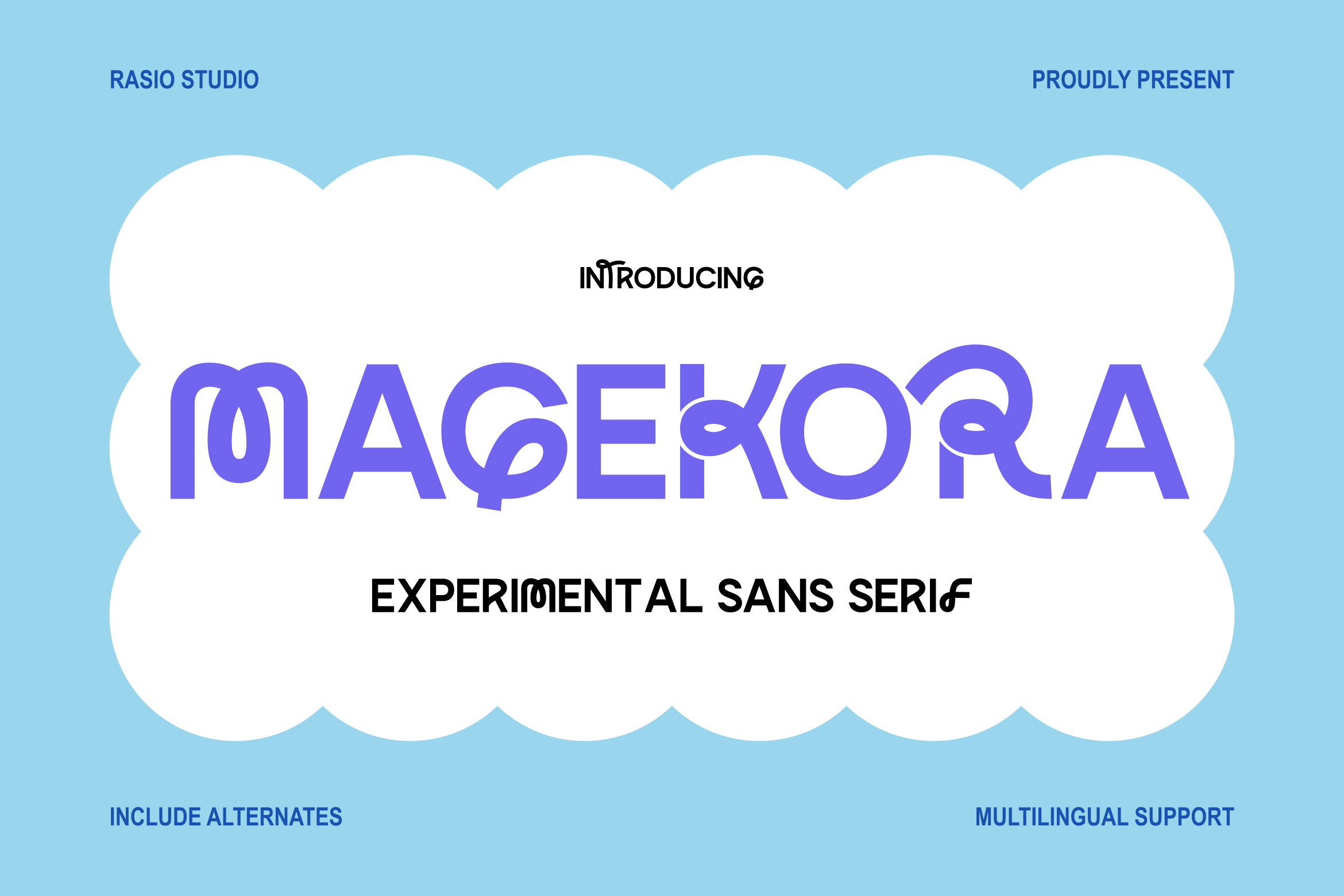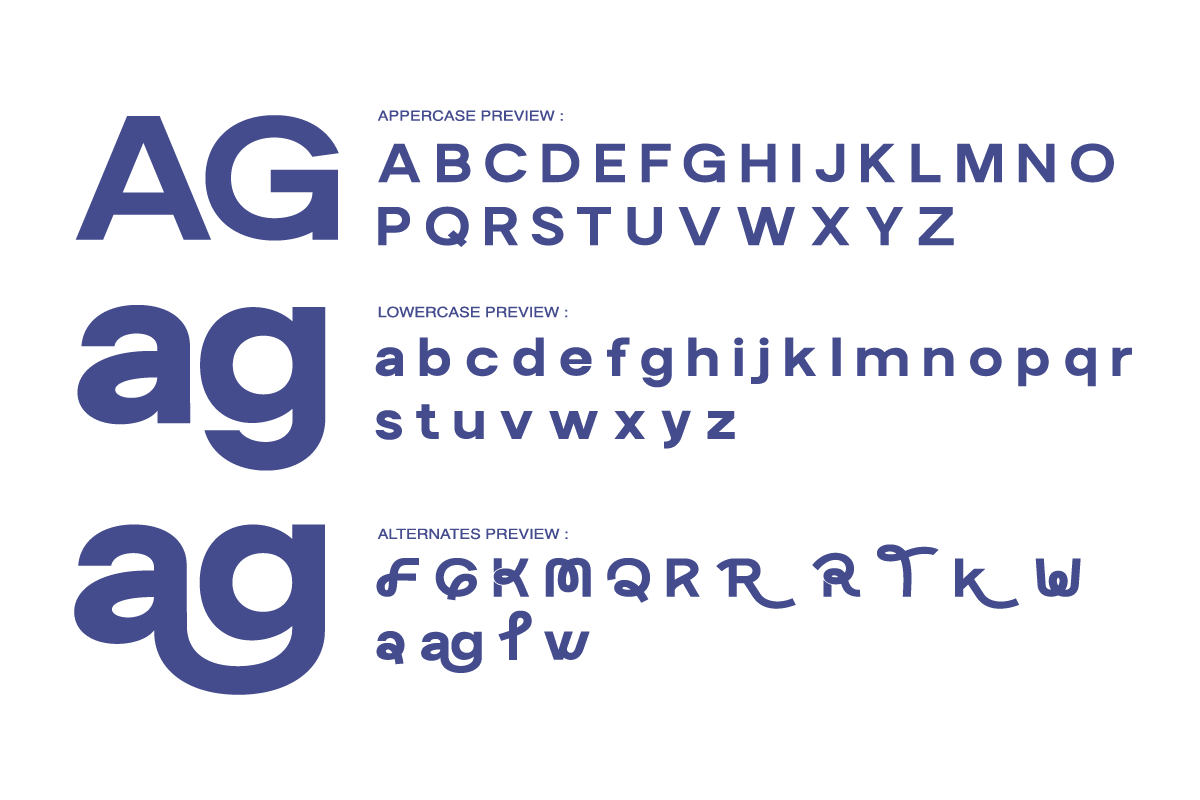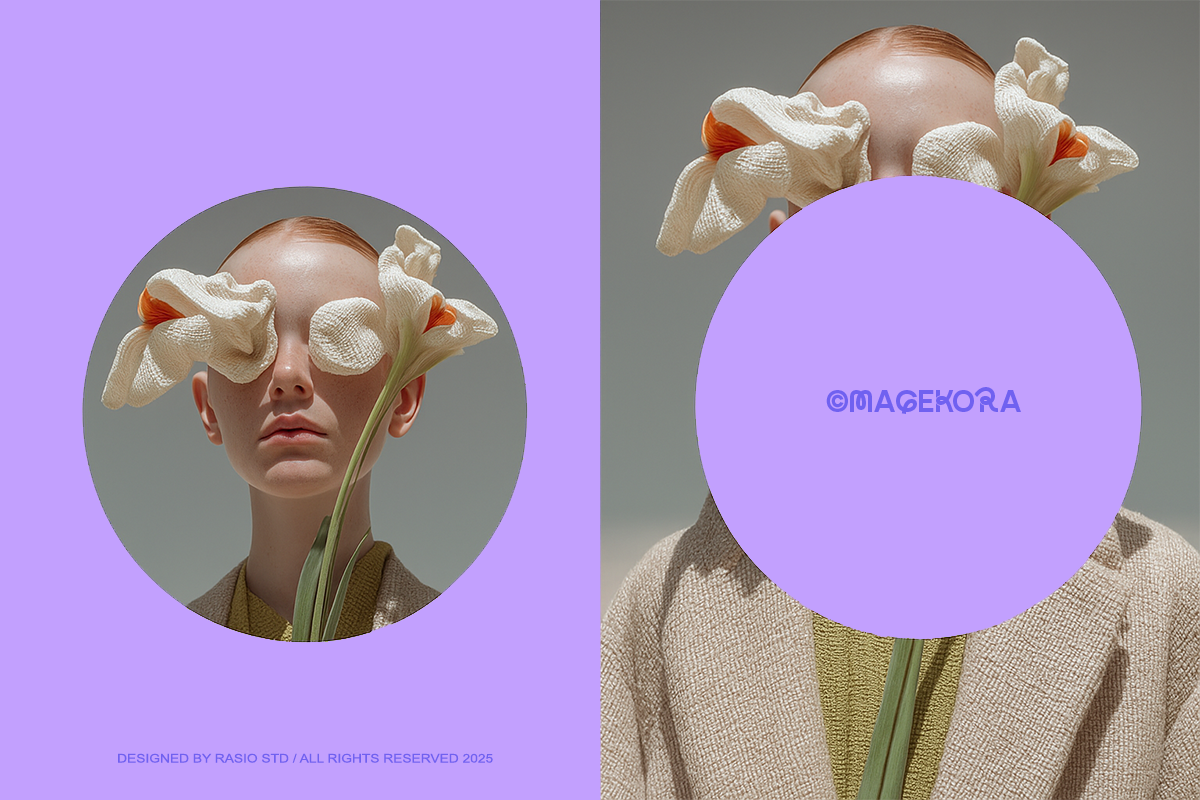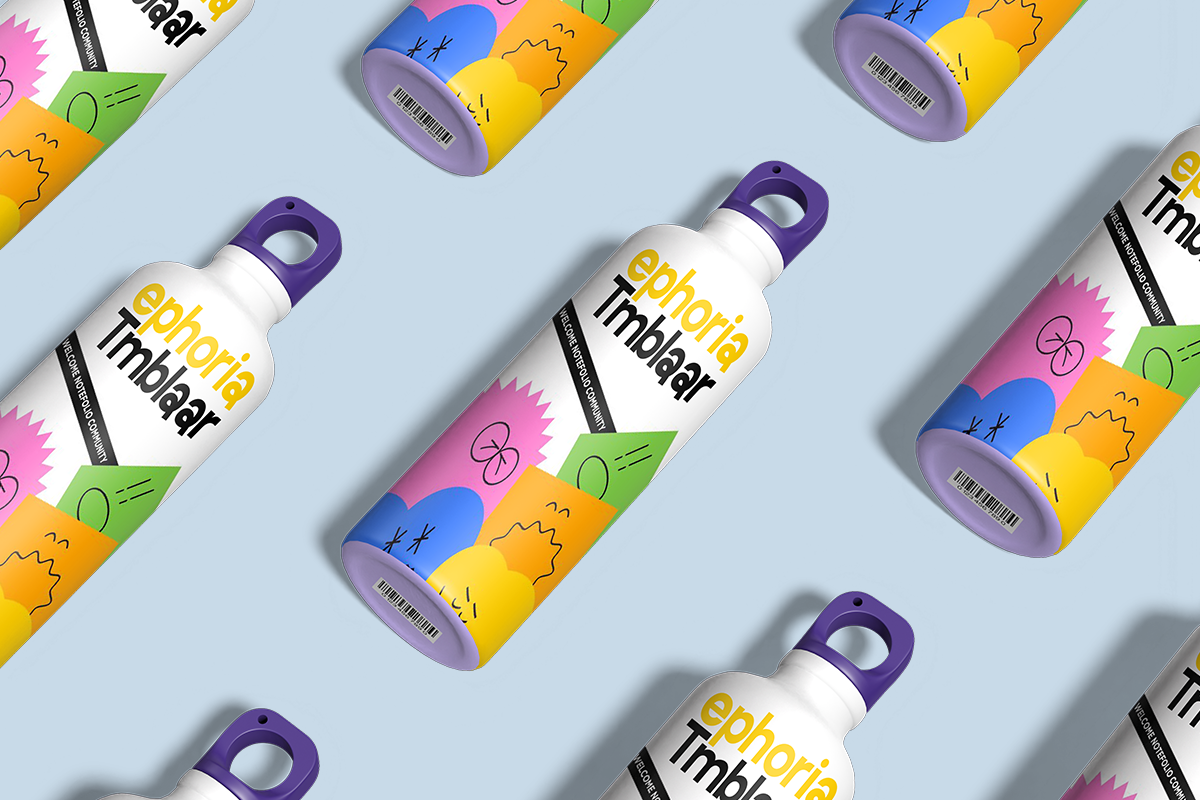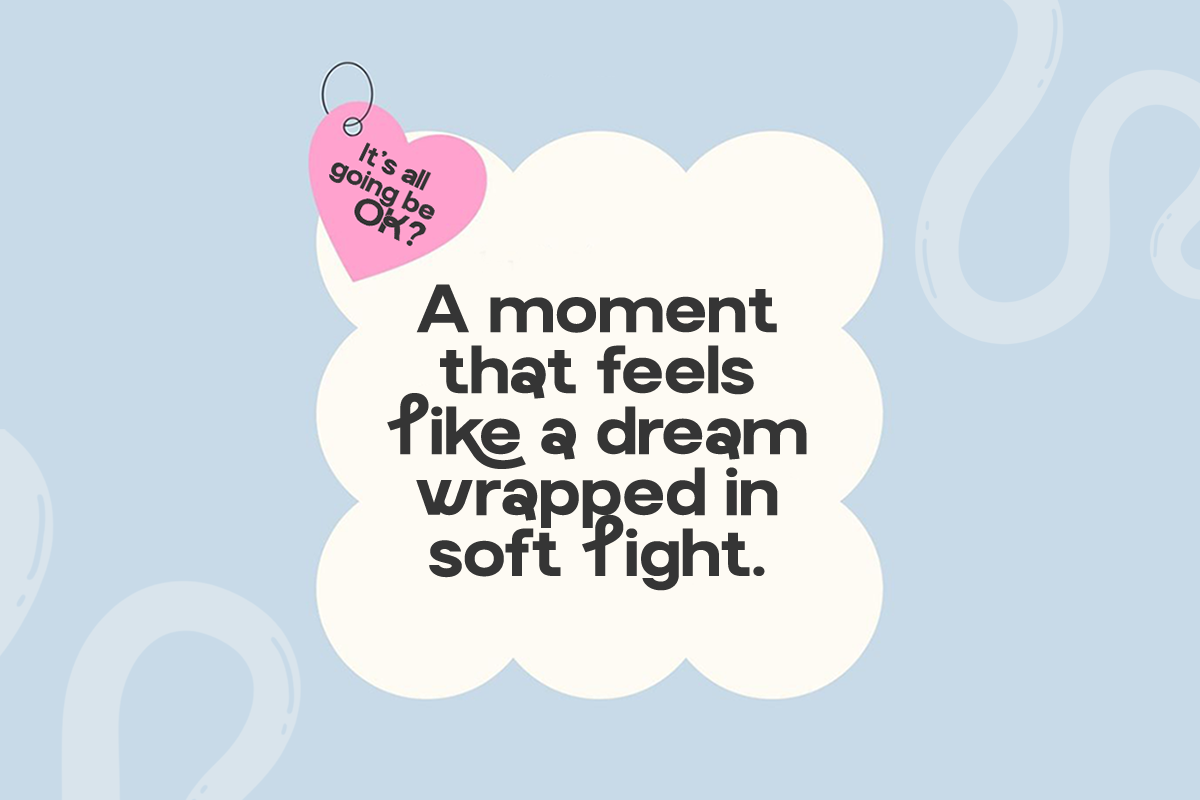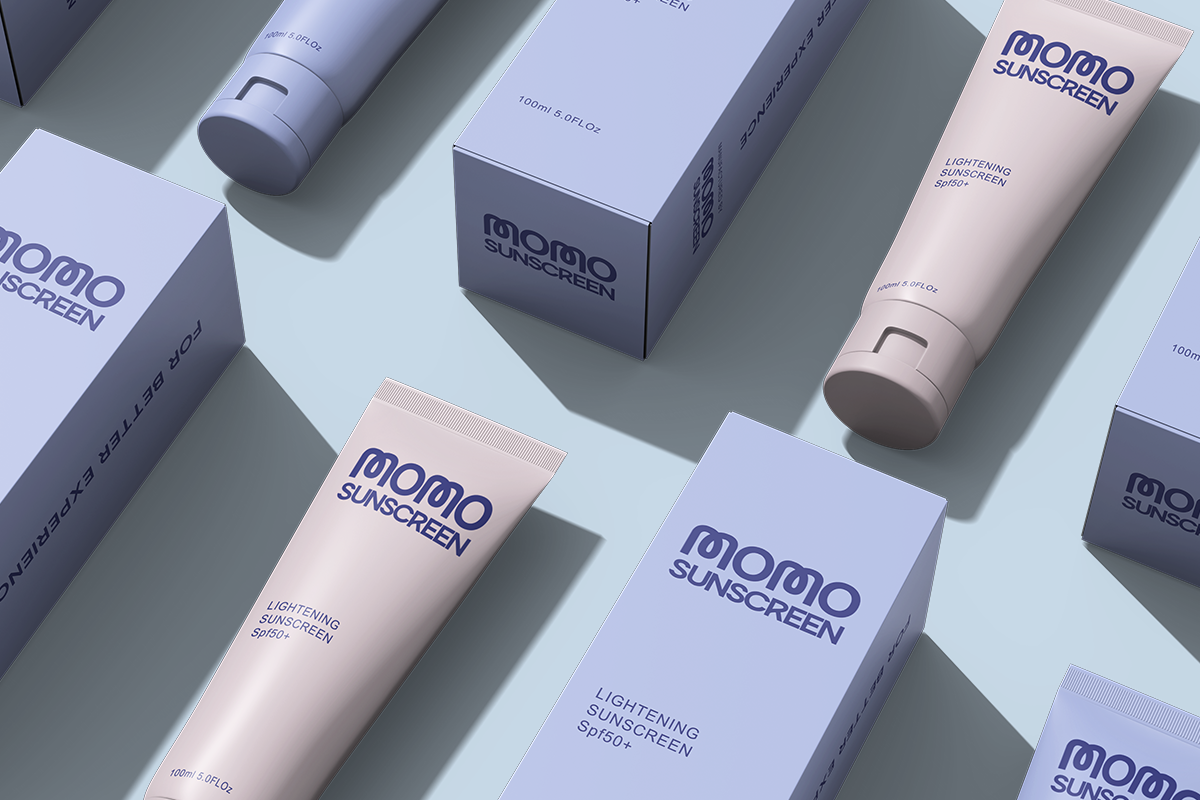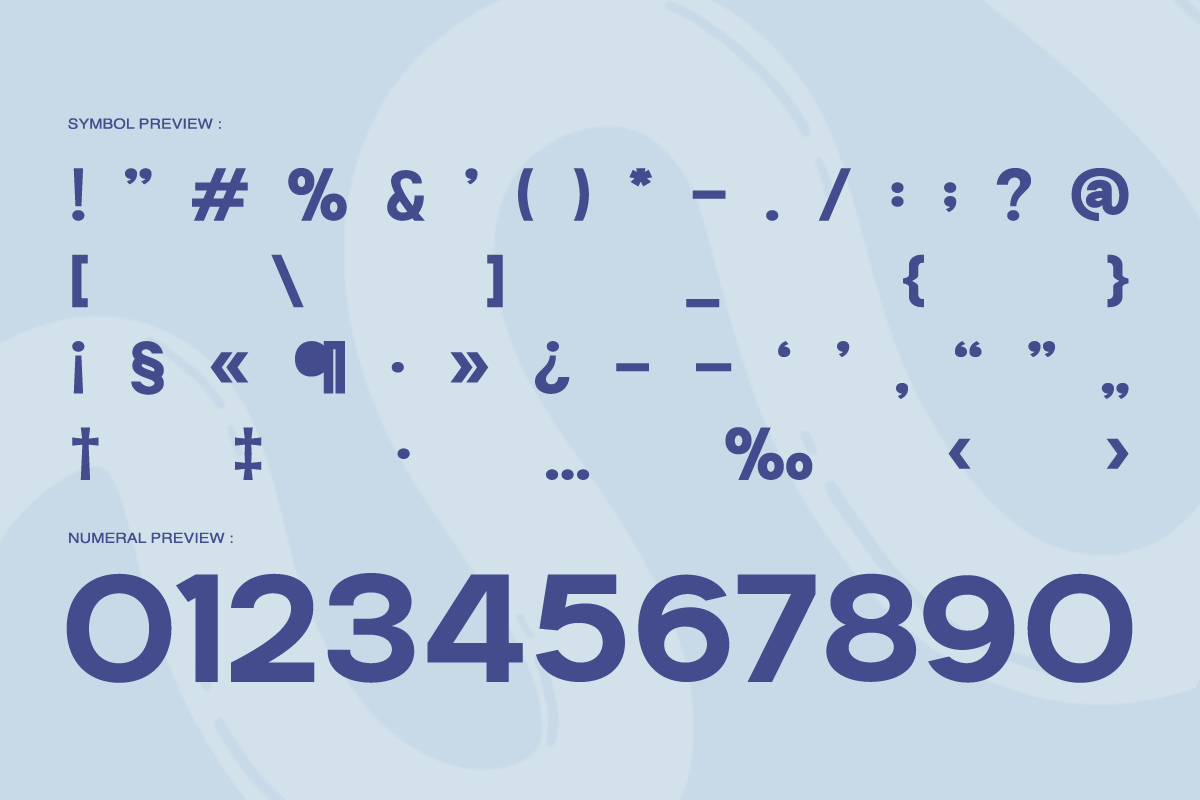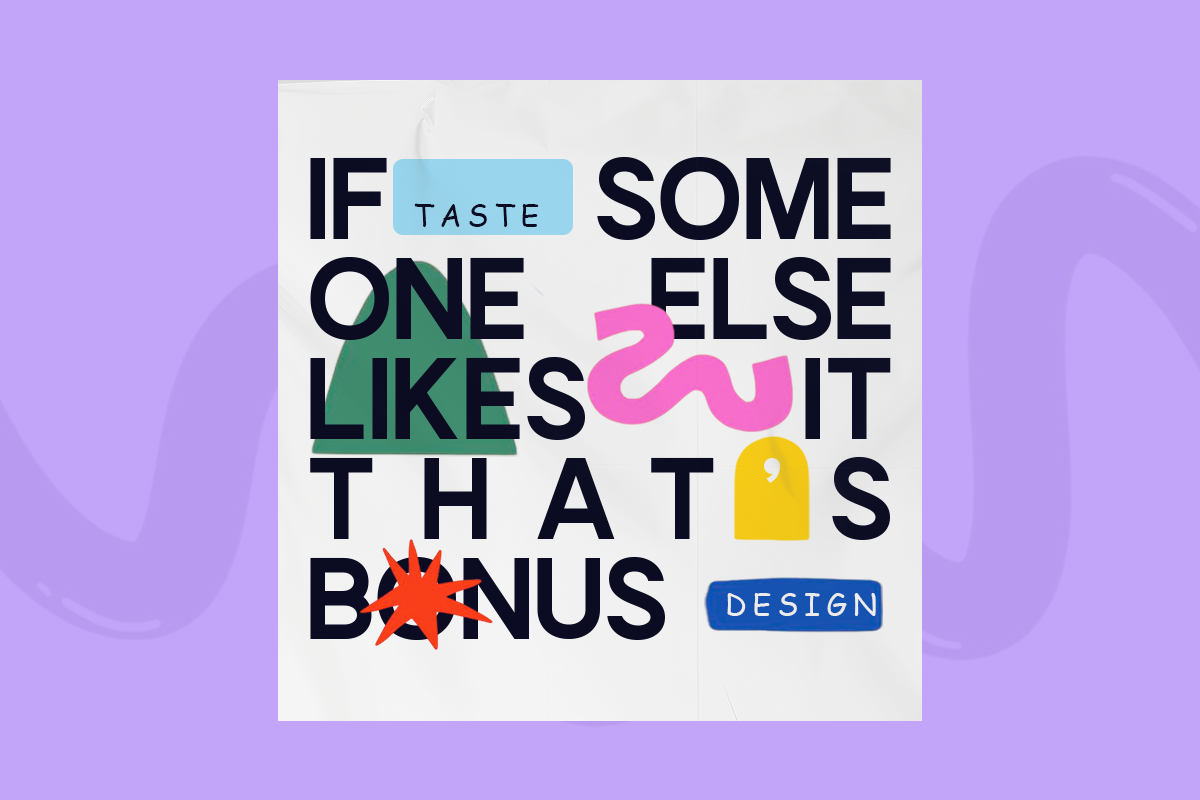
Magekora Experimental Sans Font
Magekora is an experimental sans serif font that blends geometric structure with playful curves and unique alternate characters. Its innovative letter design creates a bold, futuristic tone while maintaining clarity and balance. Crafted for modern designers, Magekora combines creativity with usability perfect for visual identities that aim to stand out. This typeface offers both standard and alternate glyphs, making it adaptable for various visual styles from minimalistic layouts to vibrant digital designs. Its quirky yet functional construction makes Magekora a striking choice for experimental branding and creative editorial work.
Relevance and Use Cases is perfect for branding projects, tech startups, digital interfaces, experimental posters, and creative advertisements that explore the boundary between modernism and artistic innovation.
- Experimental sans serif with unique and unconventional letterform design
- Playful alternates and ligatures adding expressive visual character
- Geometric base structure combined with creative distortions
- Bold and dynamic shapes for eye-catching and distinctive typography
- Designed for standout display use with a strong creative identity
- Creative branding with a bold and experimental visual identity
- Poster design, music covers, and artistic visual compositions
- Logo design with unique and unconventional letterforms
- Social media content that needs playful and eye-catching typography
- Creative campaigns, events, and youth-oriented branding
Stand out with Magekora, a distinctive sans for creative visual identity